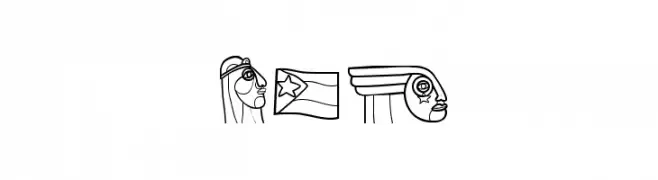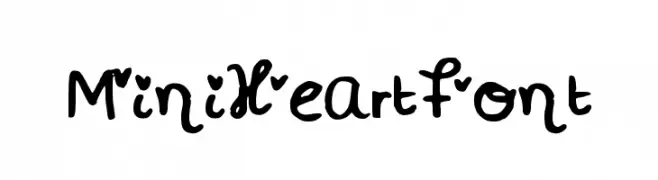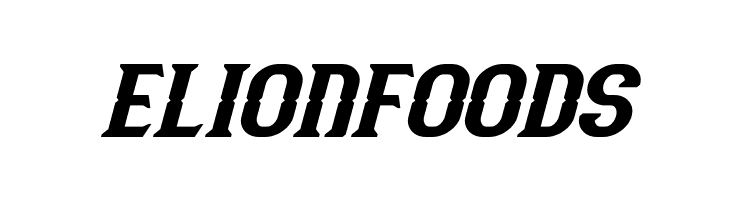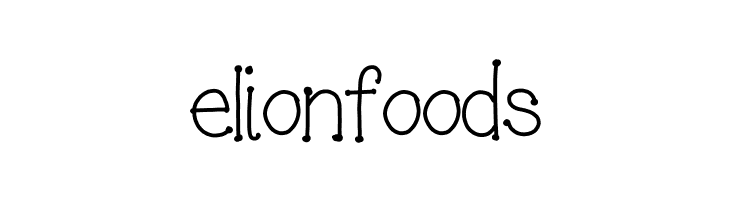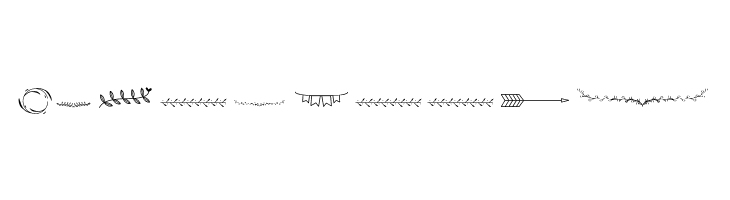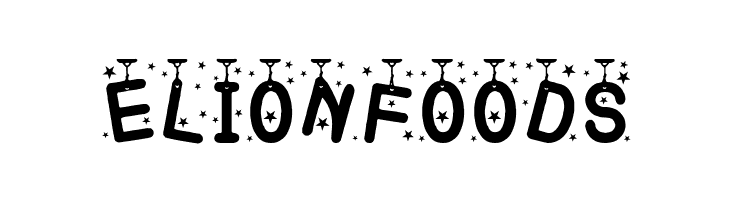
( Noah K. )
An elegant, flowing script with intricate curves and a mystical appearance.
( Perdana Kurniawan Arta - creativemarket.com/perdanakun )
A whimsical, decorative serif font with playful curls and loops.
( Pixel Sagas - Neale and Shayna Davidson - www.pixelsagas.com )
A bold, italic font with decorative diamond accents and dynamic style.
( PlumbobsandHolosprites - Flore Creations - plumbobsandholosprites.tumblr.com )
A playful, heart-themed font with bold, rounded characters and a hand-drawn style.
( Rajendra Bitling - www.rbitling.com )
An ornate and decorative font with intricate flourishes and high contrast.
( Rasdesign - Rodrigo Araya Salas - www.behance.net/rasdesign )
Hand-drawn decorative dingbat font with abstract portraits and symbols.
( SSI.Scraps - Syukur Setiyadi - www.creativefabrica.com/designer/syukursetiyadi/ )
Decorative swashes and flourishes with intricate, elegant lines.
( Sabrina Schleiger - www.sabrinaschleiger.com )
A playful, whimsical font with rounded edges and dot accents.
( Sabrtype - creativemarket.com/Sabrtype )
The image contains decorative elements, not a valid font.
( Woodcutter - woodcutter Manero - www.woodcutter.es )
A playful, whimsical font with hanging letters and star accents, perfect for festive designs.